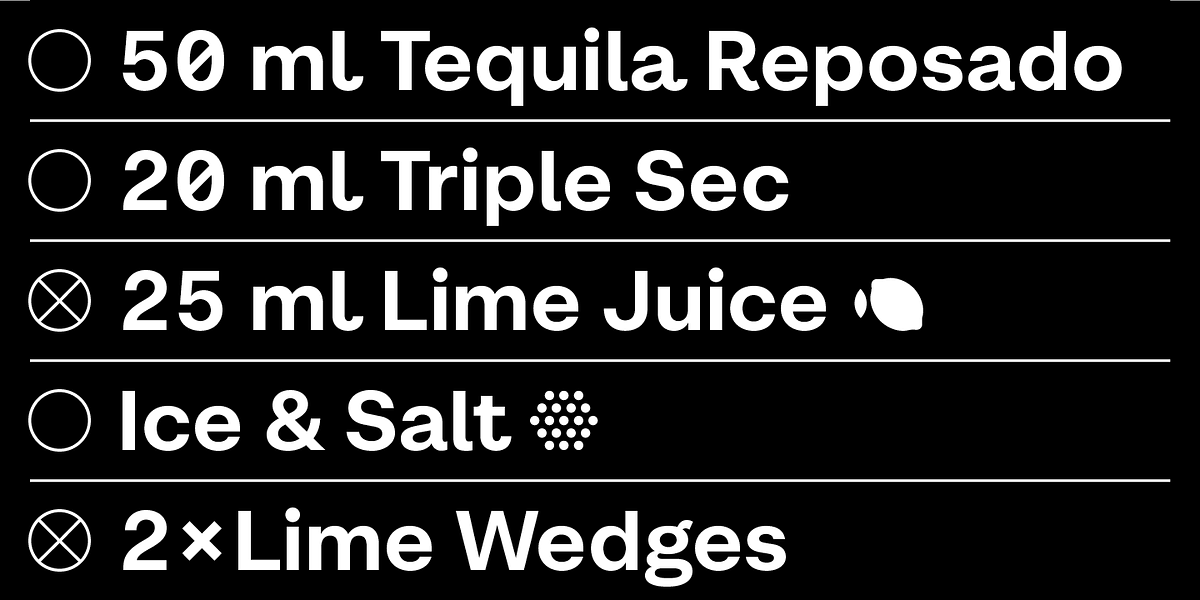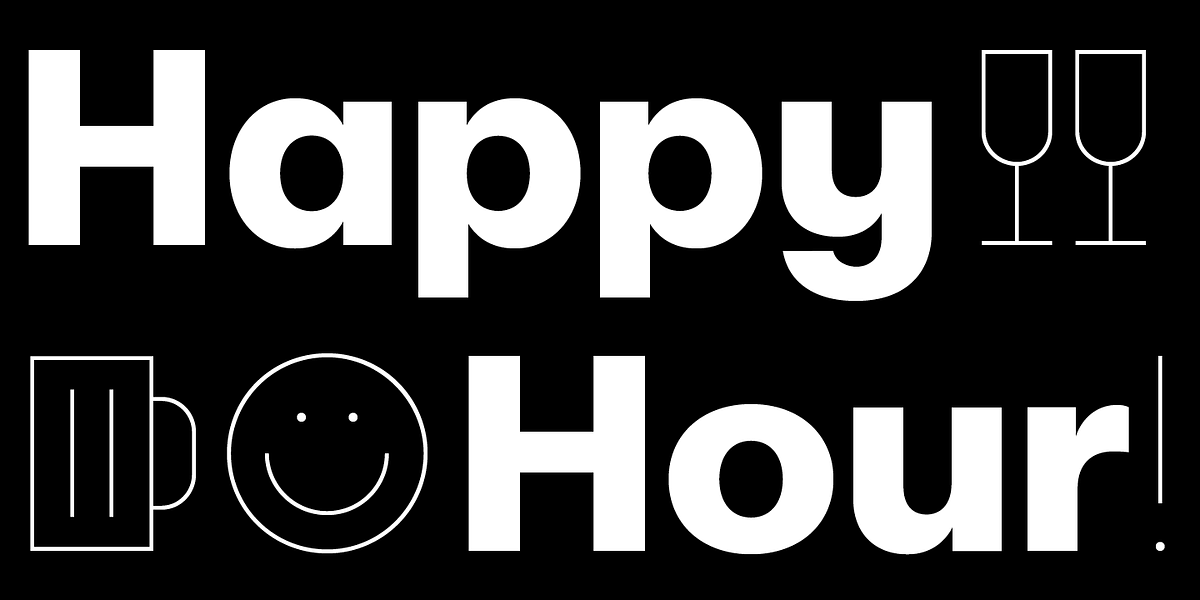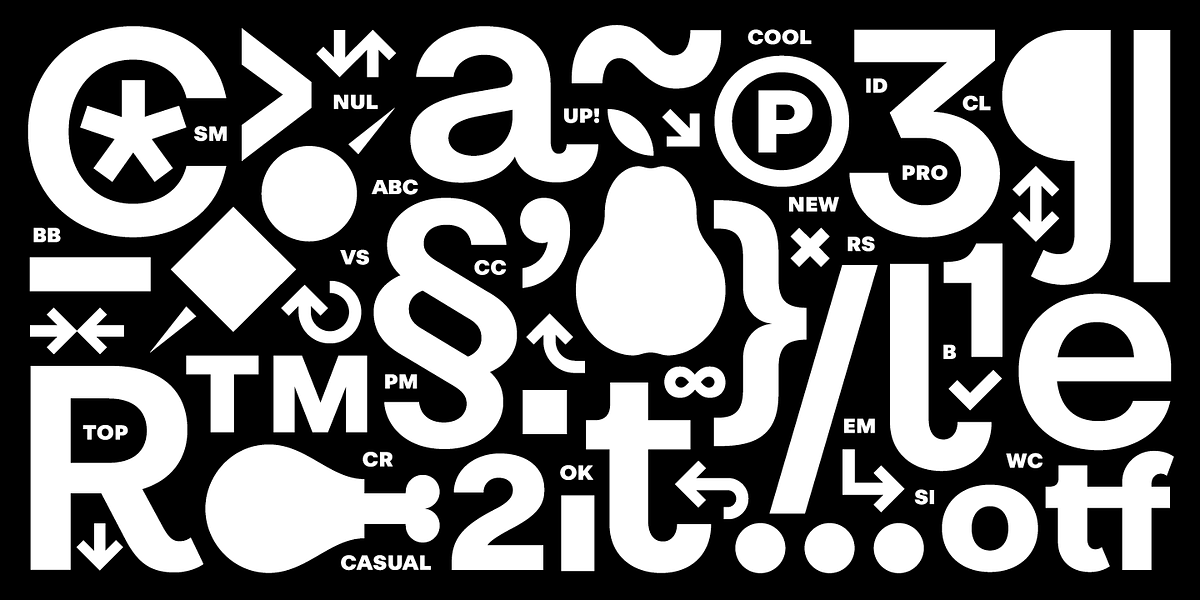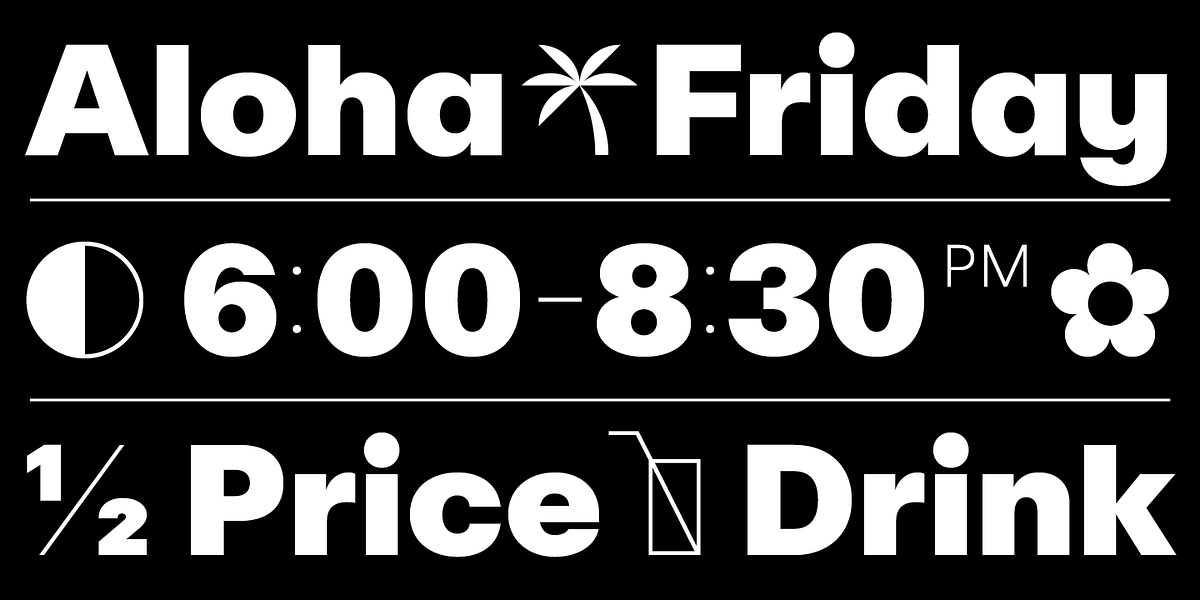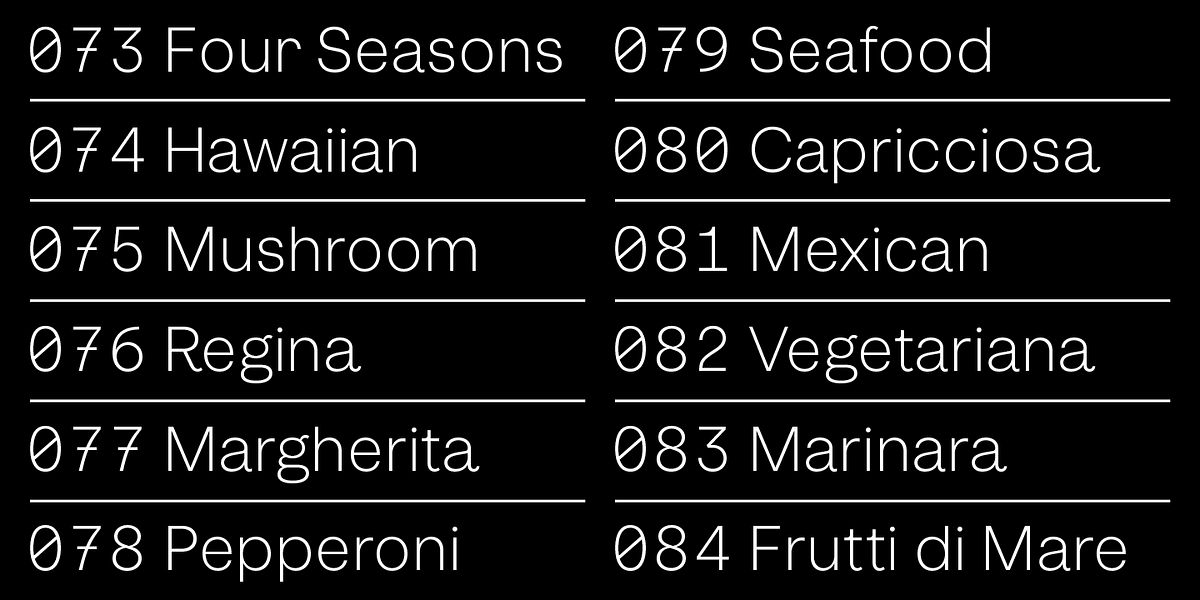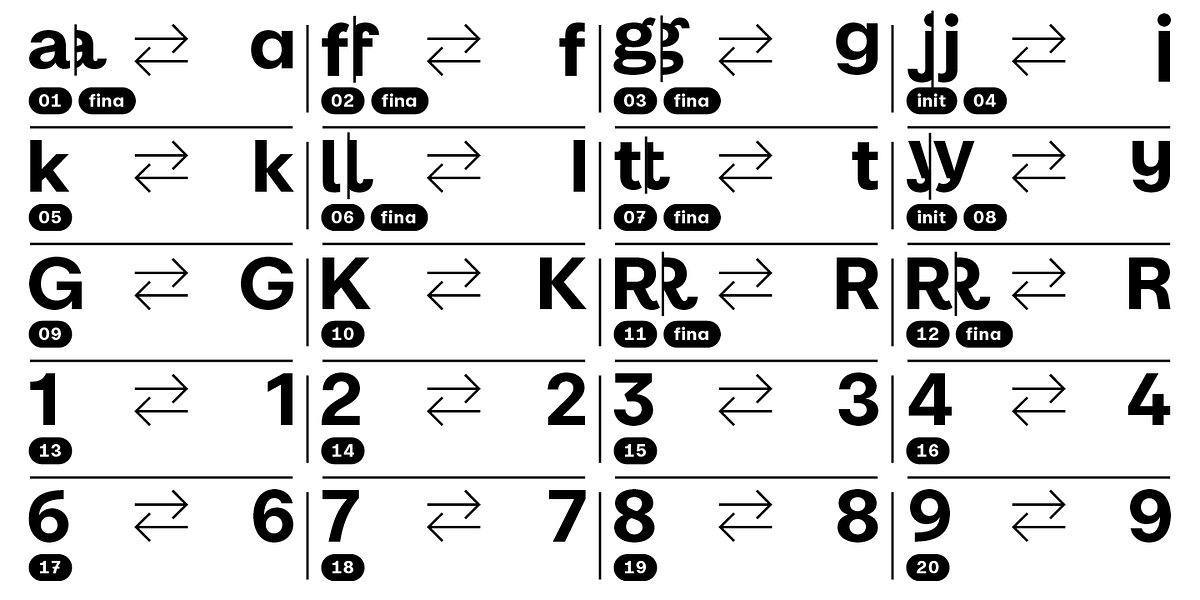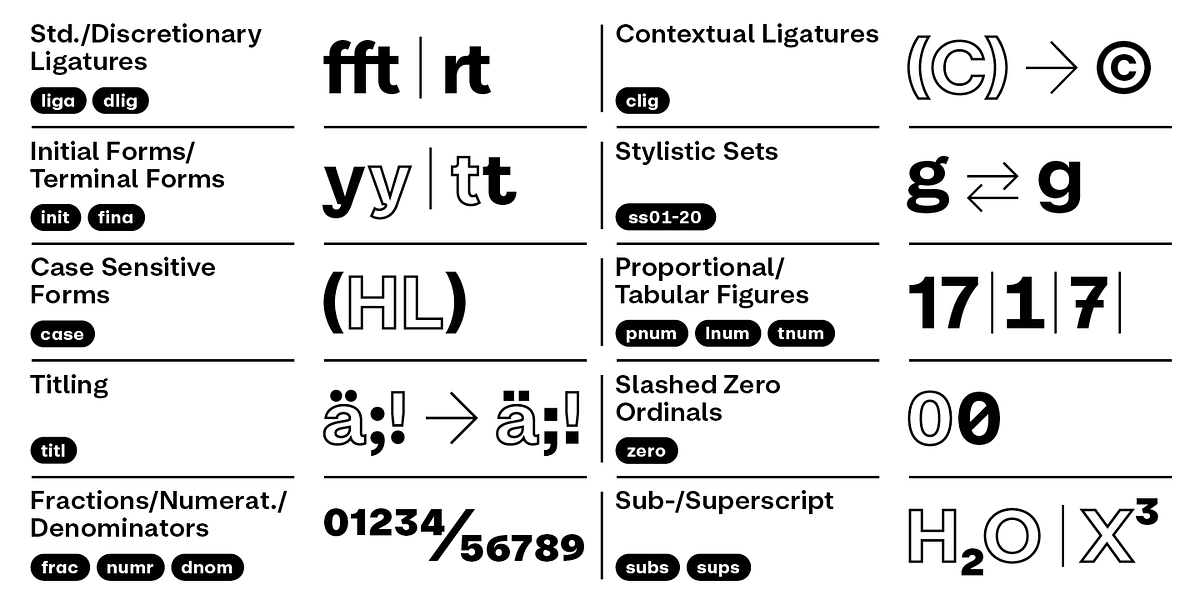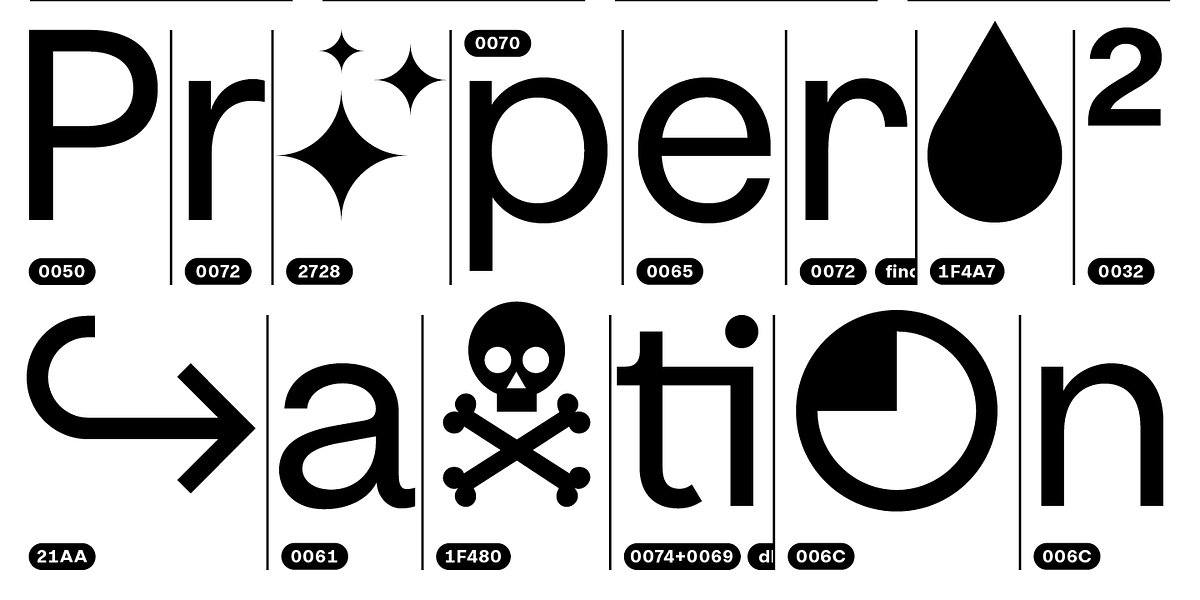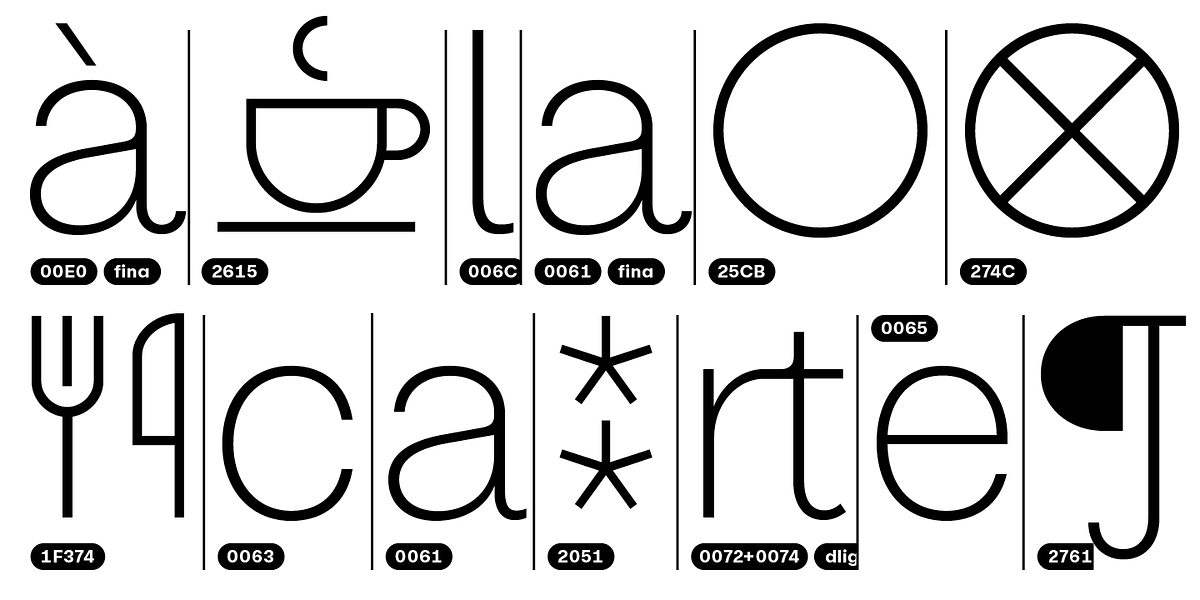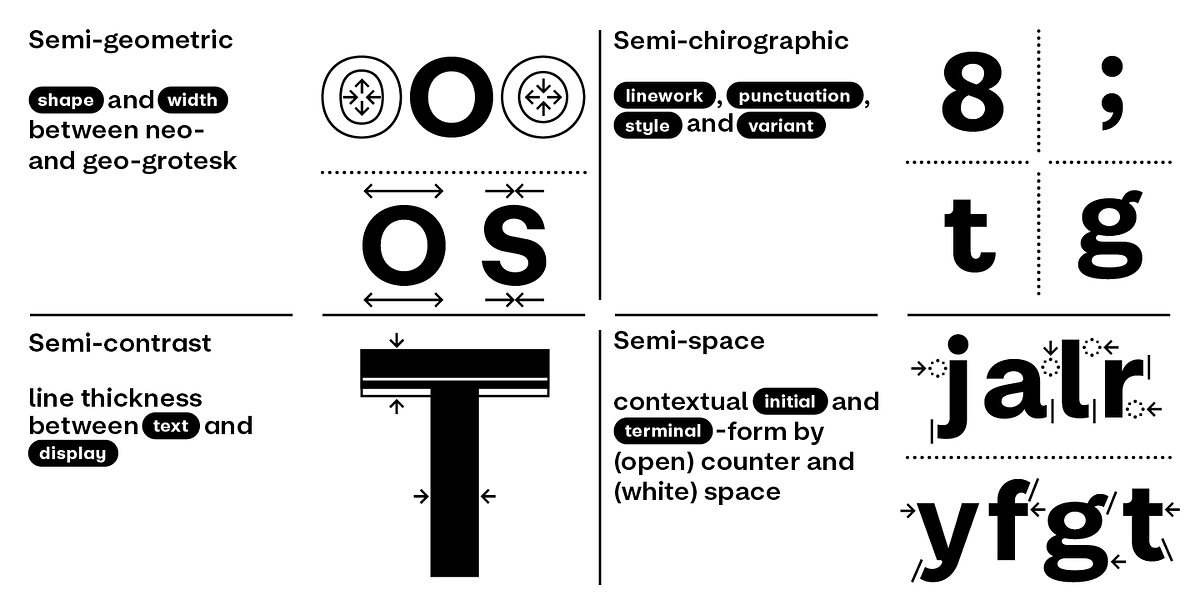
BB Casual™ (Pro)
BB Casual™ is a modern geometric sans-serif font family. It features high contrast between thick and thin strokes, giving it a clean and contemporary look. The font is designed with versatility in mind, suitable for both text and display applications. It offers a wide range of weights and widths, along with stylistic sets and OpenType features for customization.